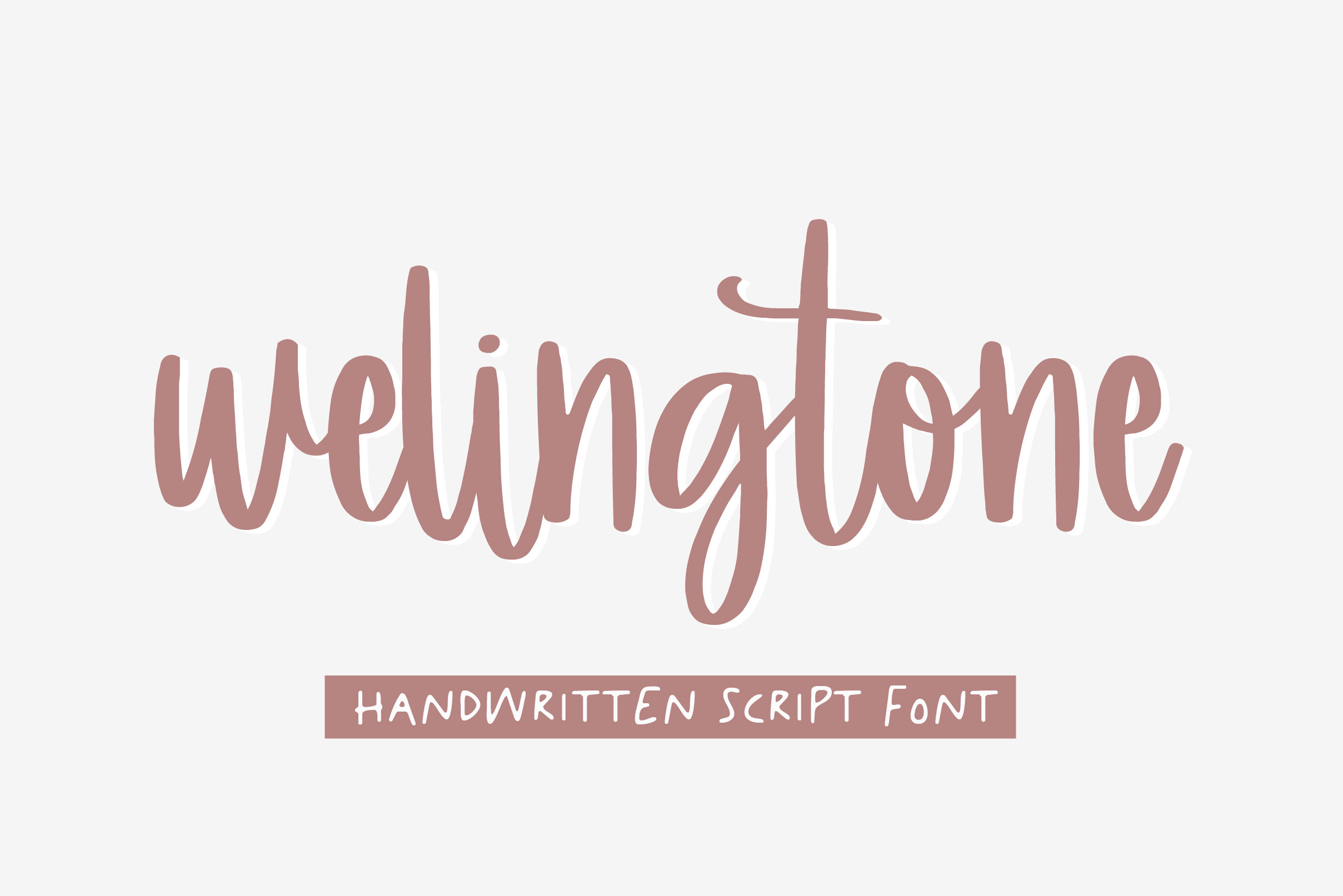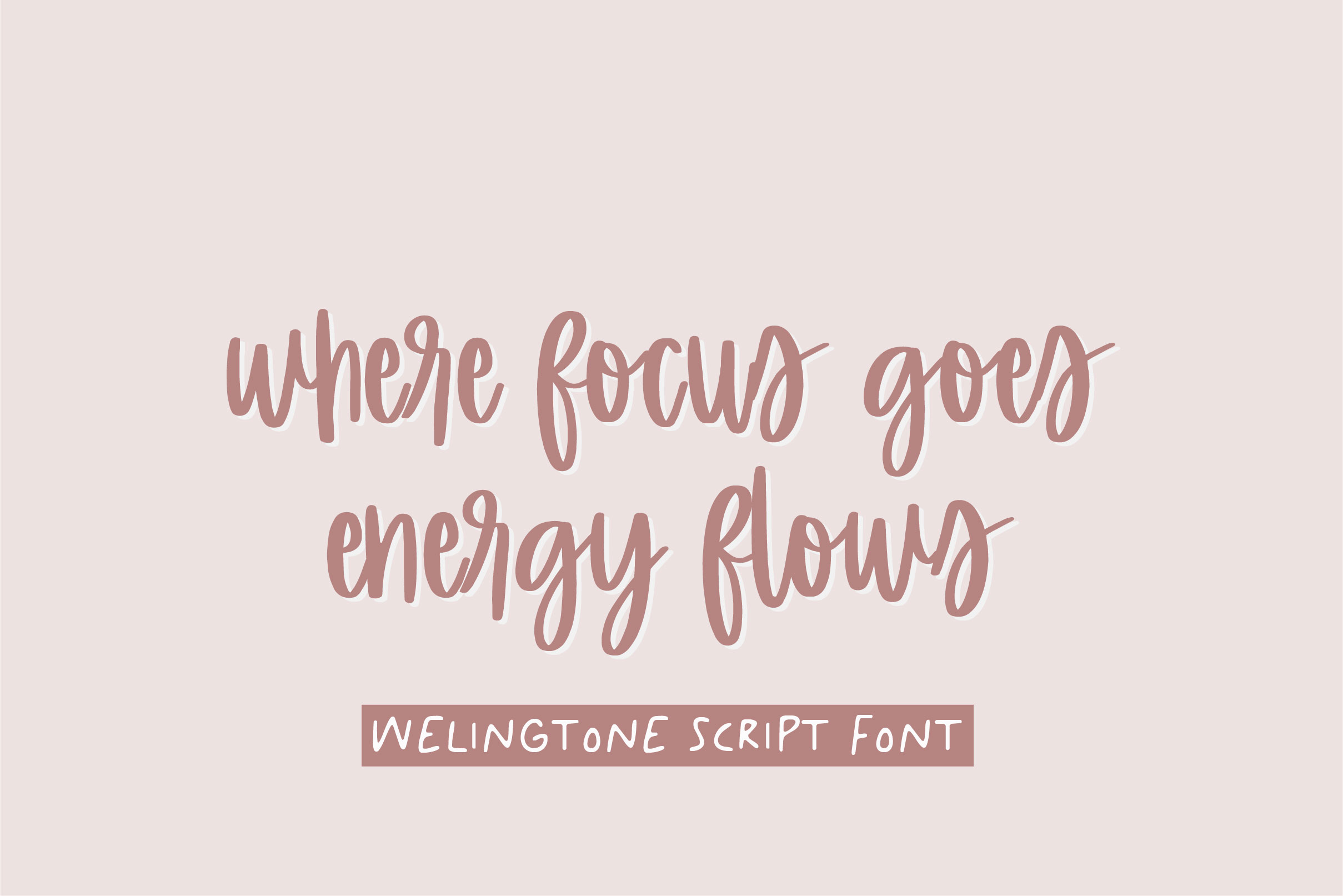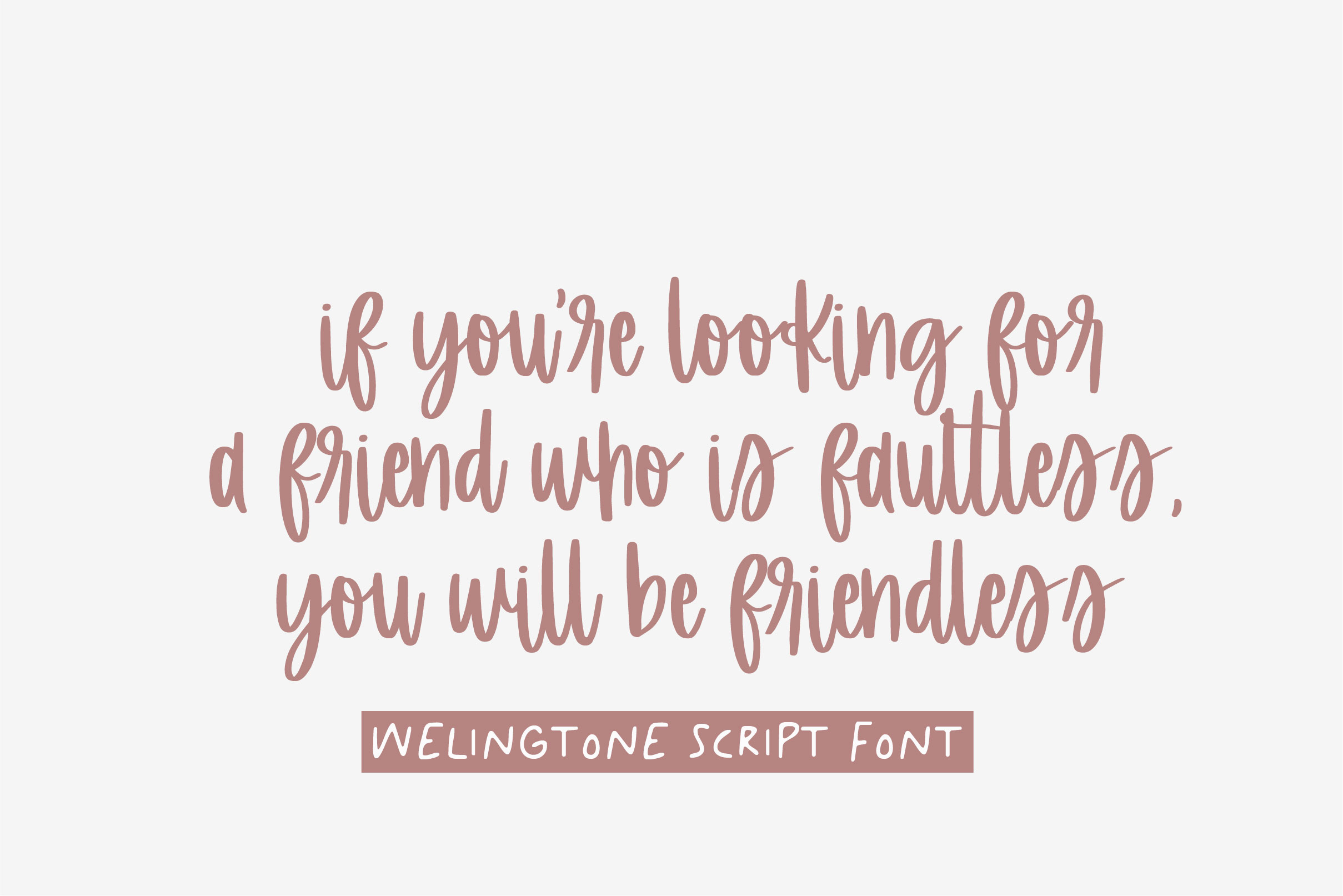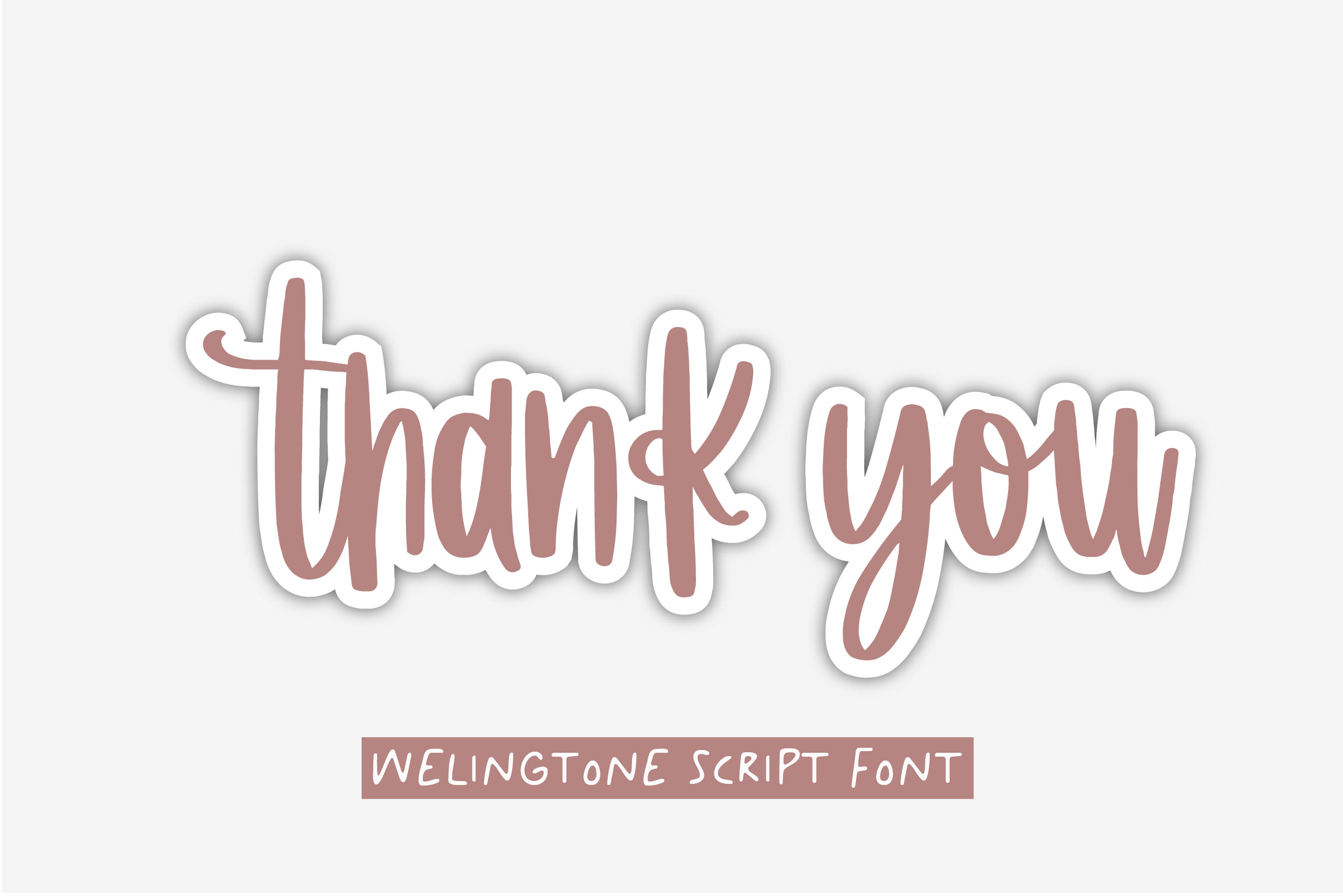
Welingtone Font
Welingtone Script FontWelingtone Font preview image 2Welingtone Font preview image 3Welingtone Font preview image 4
Welingtone Script Font is a chic, refined script font that emanates sophistication and elegance. Its stylish alternates and ligatures make this font the perfect match for any project. Welingtone is PUA encoded which means you can access all glyphs and swashes with ease!
– Uppercase, Lowercase, Numeral & Punctuation
– Alternate Letters, Ligature & Swash/Tail